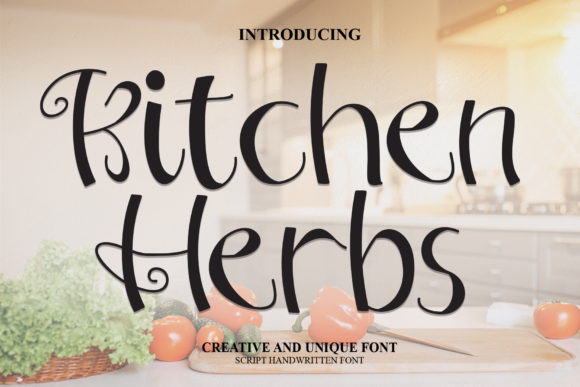
Kitchen Herbs Font
**Kitchen Herbs Script: The Quaint Elegance of Handwritten Beauty**
In the realm of digital artistry, where fonts dance like notes on a musical staff, there lies a hidden gem, a font that captures the essence of elegance and charm. Kitchen Herbs Script, a masterpiece crafted by the visionary William Jhody, is a font that weaves a spell of captivating handwritten beauty. Its delicate strokes, reminiscent of a gentle breeze caressing a flower petal, imbue your designs with a touch of whimsical delight.
**A Culinary Symphony of Script**
Inspired by the aromatic herbs that grace our kitchens, Kitchen Herbs Script is a font that evokes the warmth and comfort of a home-cooked meal. Its characters, like finely chopped parsley or snipped chives, add a sprinkle of charm to your culinary creations. Design menus that sizzle with flavor, invitations that tantalize the taste buds, or social media posts that whet the appetite. Let Kitchen Herbs Script be the secret ingredient that elevates your culinary designs to a feast for the eyes.
**Unveiling the Delights of Wedding Programs**
In the tapestry of life's celebrations, few moments compare to the joyous union of two souls. Kitchen Herbs Script is the perfect font to adorn your wedding program, transforming it into a cherished keepsake. Its graceful lines and romantic swashes create an atmosphere of ethereal beauty, capturing the essence of love and commitment. Your guests will be captivated by the delicate artistry of each letter, a testament to the enduring bond you share.
**Endless Creative Possibilities**
The versatility of Kitchen Herbs Script extends beyond culinary and nuptial designs. It lends its charm to a myriad of creative endeavors. Design ethereal logos that speak of elegance and grace, or let your imagination bloom with enchanting stationery that reflects your personal style. Create social media posts that captivate your audience, or craft heartfelt letters that carry the warmth of your words. The possibilities are as vast as the garden of your imagination.
**A Font to Enthrall, Delight, and Inspire**
Kitchen Herbs Script is more than just a font; it's an invitation to embark on a creative journey. Its beauty and versatility will ignite your imagination, empowering you to design projects that resonate with your heart and soul. Whether you're a seasoned designer or embarking on your creative odyssey, Kitchen Herbs Script will be your trusted companion, guiding you to enchanting new heights.